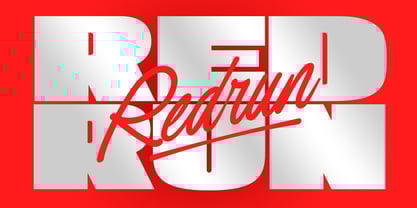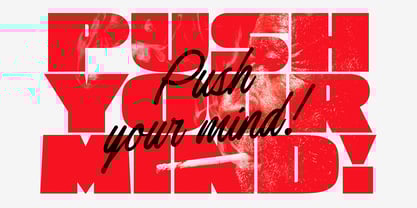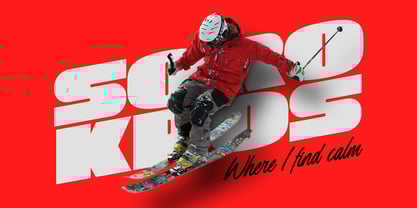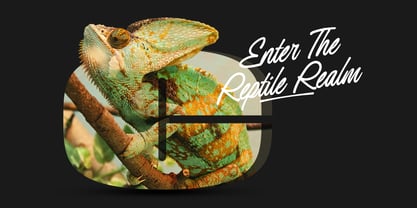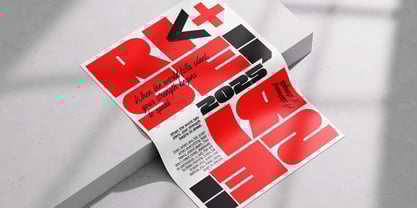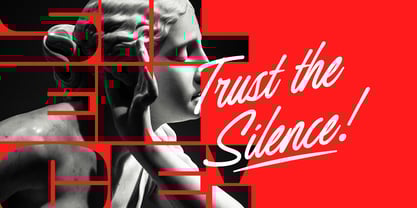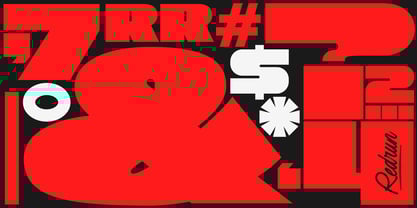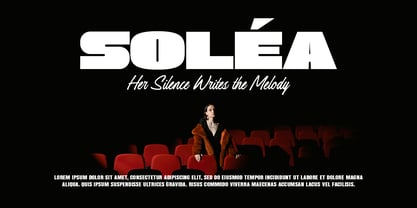
Redrun
by Lemonthe
The Redrun Font Family was designed by Dwi Ahidian and published by Lemonthe. Redrun contains 2 styles and family package options. More about this family
Introducing Redrun, a font duo that combines bold display style with a modern handwritten touch. The bold display font brings a strong and confident look, while the script adds energy and a personal flair. Together, they create a clean and balanced appearance, perfect for various design needs such as branding, logos, posters, product packaging, titles, and digital ads. Redrun delivers a strong visual impression with a modern touch.
"Lemonthe is a type foundry operated by Dwi Ahidian, a letter enthusiast who enjoys calligraphy and loves experimenting with letter forms. Lemonthe provides a captivating collection of typefaces, each carrying a creative and unique experimental touch, meticulously crafted by hand. Dedication to detail ensures that some typefaces emanate a deep and serious aesthetic, while others showcase a more playful and creative side."